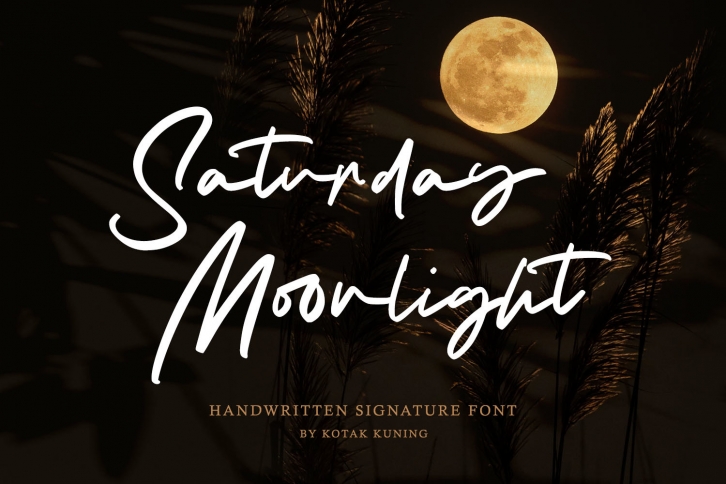
Saturday Moonlight is a natural and stylish handwritten font. It will add an authentic touch to any design idea. This font is PUA encoded which means you can access all of the glyphs and swashes with ease!